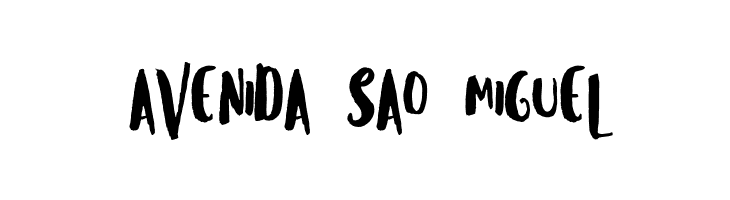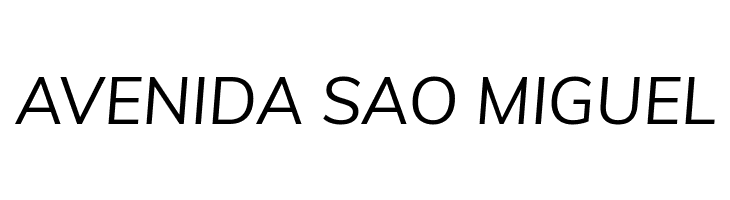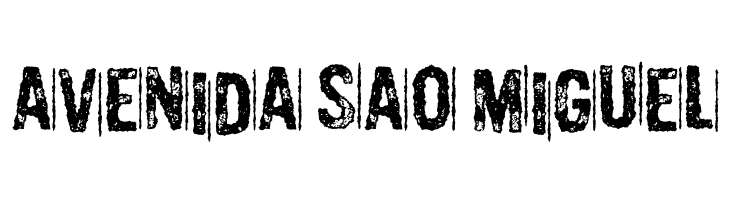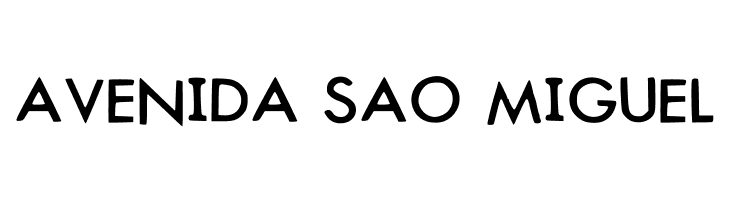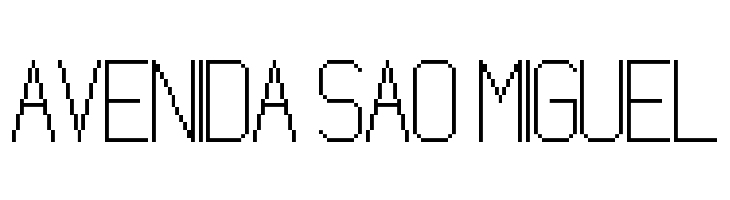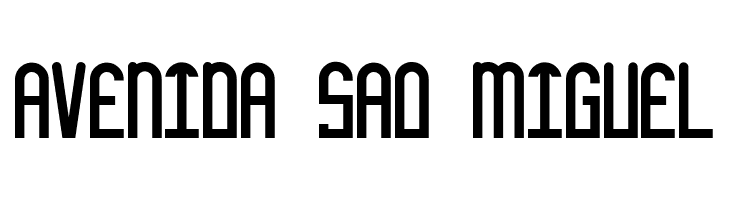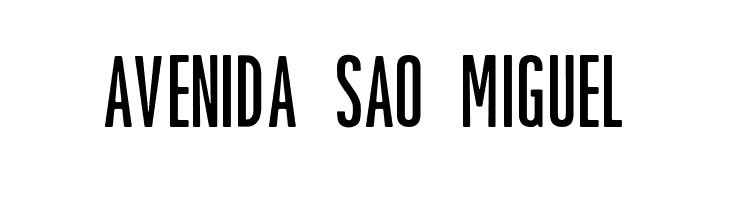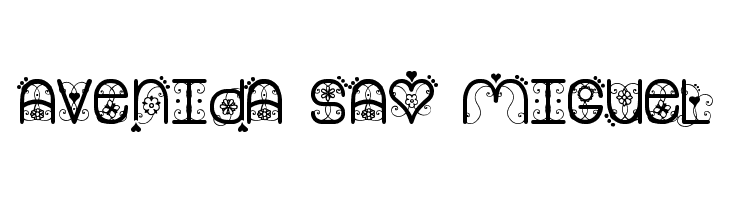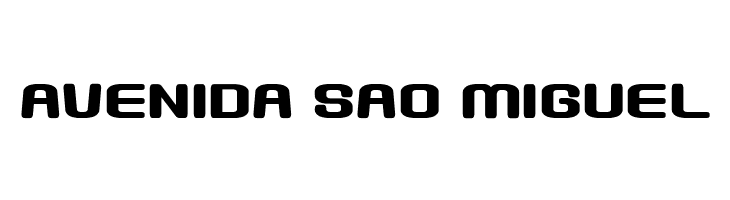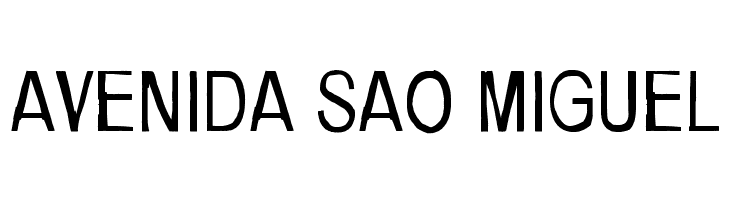
A bold, italicized sans-serif font with a modern and clean design.
A modern, bold sans-serif font with clean lines and excellent readability.
A modern, extra bold sans-serif typeface with italic styling.
A clean, modern sans-serif font with a minimalist design.
A modern, extra-light italic sans-serif font with a sleek and minimalist design.
A modern, italic sans-serif font with clean lines and balanced proportions.
A modern, light, and clean sans-serif font with excellent readability.
A modern, light, and italic sans-serif font with a sleek and elegant design.
A clean, modern sans-serif font with excellent readability and versatility.
A clean, modern typeface with balanced proportions and excellent readability.
A modern, italicized sans-serif font with medium weight and normal spacing.
A futuristic, digital-style font with horizontal line effects.
A modern, tall, and narrow sans-serif font with a clean and professional appearance.
A playful, rounded font with a whimsical and friendly style.
A bold, distressed font with a grunge, stencil-like appearance.
A bold, expressive brush-style font with dynamic strokes and a hand-painted look.
A clean, modern sans-serif font with a utilitarian aesthetic.
A bold, expressive handwritten font with a playful and dynamic style.
A bold, hand-drawn font with an expressive and dynamic style.
An elegant, high-contrast script font with flowing, decorative characters.
A playful handwritten font with a casual and friendly style.
A playful, handwritten font with smooth, rounded edges and a whimsical style.
A playful, handwritten font with a friendly and casual style.
A playful, handwritten font with rounded edges and a casual style.
A bold, hand-drawn font with an artistic, graffiti-like style.
A bold, vintage slab serif font with high contrast and block-like serifs.
A playful, sock-themed decorative font with bold, blocky letters.
A bold, rounded font with a modern and futuristic style.
A bold, modern sans-serif font with clean lines and balanced spacing.